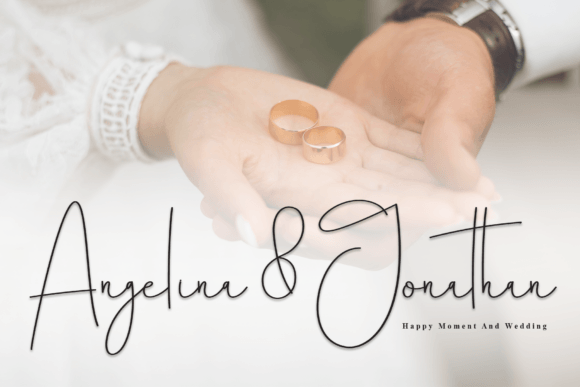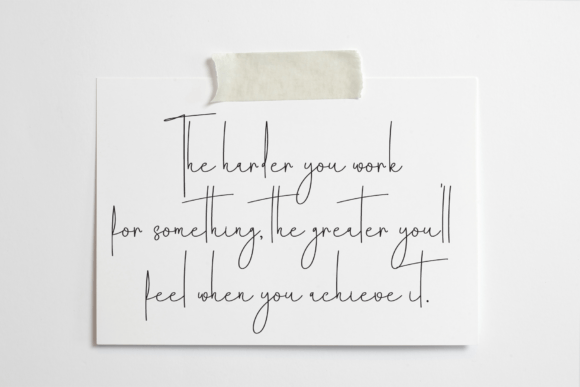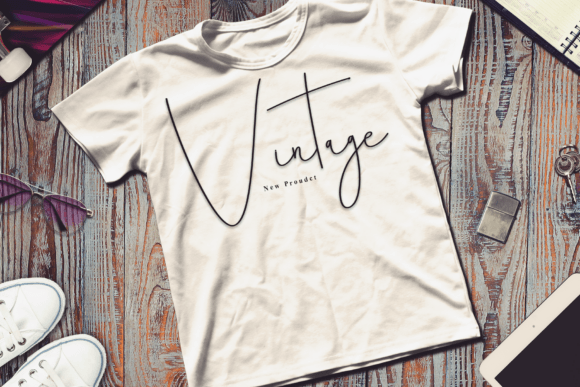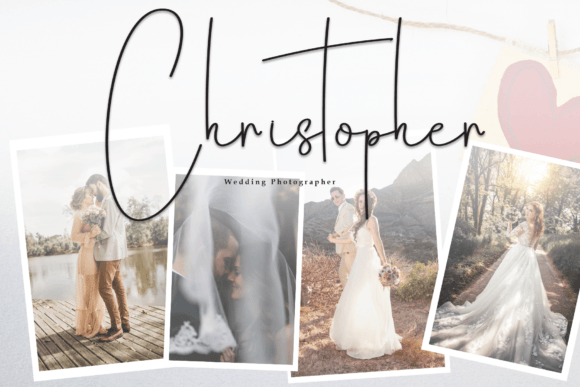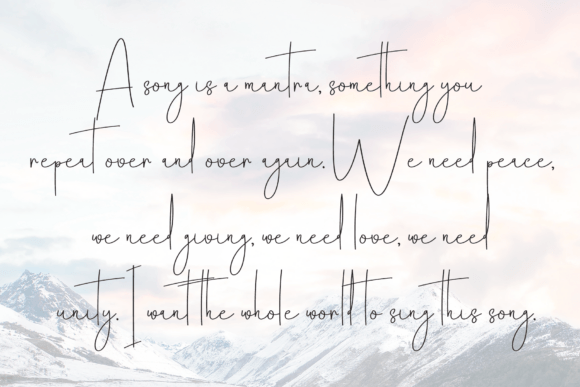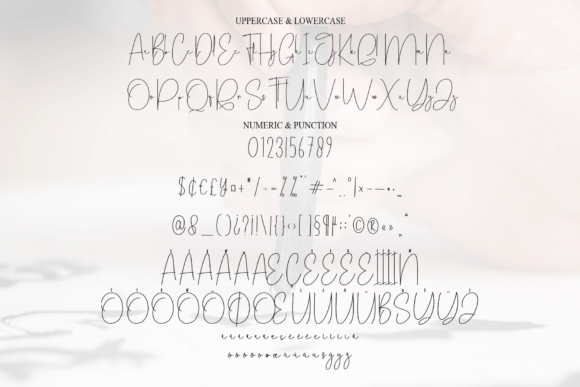
Introducing Calligraphy Handmade Font: Elevate Your Designs with Elegant Flair
Are you a designer or crafter looking to add a touch of sophistication and personality to your work? Look no further than the Calligraphy Handmade Font. This stunning handwritten font is designed to mimic the elegance of traditional calligraphy, bringing a level of refinement and artistry to any design.
The Beauty of Calligraphy Handmade Font
Calligraphy Handmade Font is a beautiful, cursive script that flows effortlessly across the page. Its intricate lettering and subtle variations in line width give it a distinctly handmade feel, as if each letter was carefully crafted by a skilled calligrapher. This font is perfect for adding a personal touch to your designs, whether you’re creating invitations, greeting cards, logos, or any other type of visual project.
Key Features of Calligraphy Handmade Font
- Flowing, Cursive Style: The Calligraphy Handmade Font features a beautiful, connected script that flows smoothly from letter to letter.
- Elegant and Refined: With its intricate lettering and subtle variations in line width, this font exudes sophistication and refinement.
- Handmade Feel: The font’s subtle imperfections and variations give it a distinctly handmade feel, as if each letter was carefully crafted by a skilled calligrapher.
- Versatile: The Calligraphy Handmade Font is perfect for a wide range of design applications, from invitations and greeting cards to logos and branding materials.
Uses for Calligraphy Handmade Font
The Calligraphy Handmade Font is a versatile design tool that can be used in a variety of creative projects. Here are just a few ideas to get you started:
- Invitations: Add a touch of elegance to your wedding invitations, birthday party invites, or any other type of special event.
- Greeting Cards: Create beautiful, handmade-style greeting cards for any occasion.
- Logos and Branding: Use the Calligraphy Handmade Font to create a sophisticated and memorable logo for your business or brand.
- Stationery: Add a personal touch to your letterhead, notebooks, or journals with this beautiful font.
Tips for Using Calligraphy Handmade Font
To get the most out of the Calligraphy Handmade Font, here are a few tips to keep in mind:
- Use it sparingly: While the Calligraphy Handmade Font is beautiful, it can be overwhelming if overused. Use it sparingly to add a touch of elegance to your design.
- Experiment with colors: The Calligraphy Handmade Font looks stunning in a variety of colors, from rich jewel tones to soft pastels.
- Pair it with other fonts: Try pairing the Calligraphy Handmade Font with a simpler font to create visual interest and contrast.
The Calligraphy Handmade Font is a beautiful and versatile design tool that can add a touch of elegance and sophistication to any project. With its flowing, cursive style and handmade feel, it’s perfect for designers and crafters looking to create unique and memorable designs. Whether you’re creating invitations, greeting cards, logos, or any other type of visual project, this font is sure to impress.